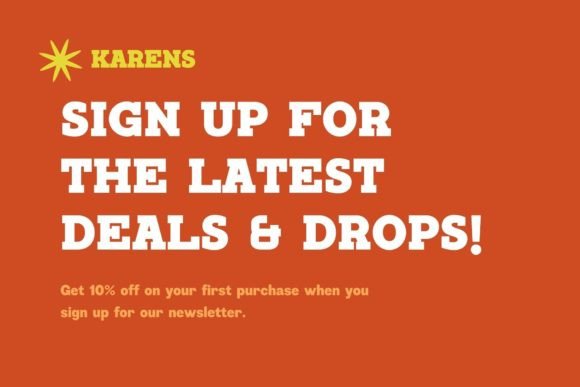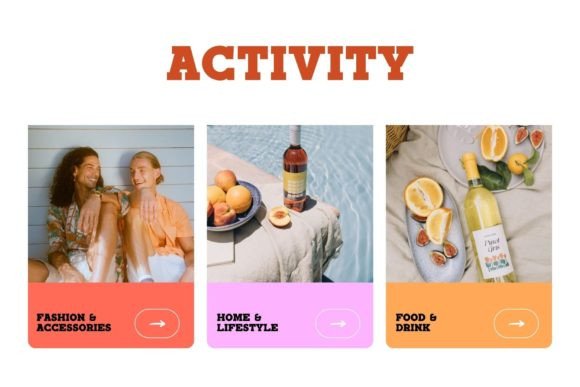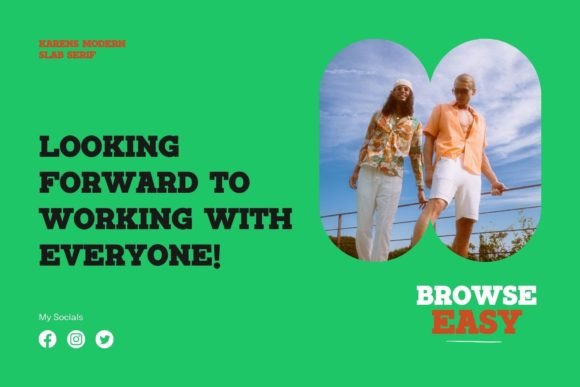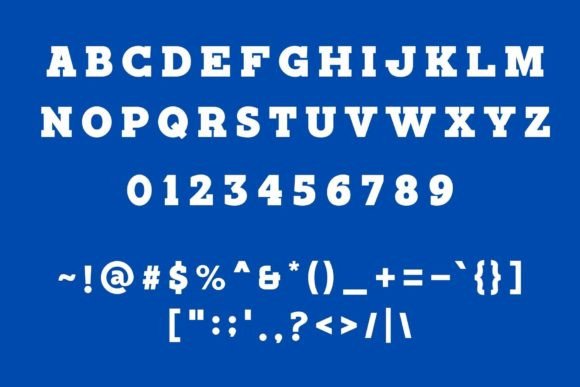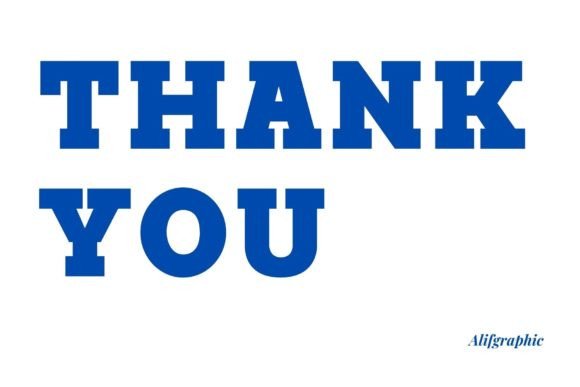
Introduction to Karens Font Font
Fonts play a crucial role in design, and the Karens Font font is a typeface that brings both character and versatility to any project. Whether you’re working on a branding project, a website, or a print design, the Karens Font font offers a unique style that can elevate your work.
Introducing β€˜Karens’ Font: A beautiful series of letters is encapsulated in this β€˜Karens’ font.
Neat lettering is perfect for writing needs that are modern and pleasing to the eye, there is a Modern impression but still looks Elegant when used for writing Tidiness in the manufacture of each letter, is our top priority.
Key Features of Karens Font Font
• βœ… High-quality typeface designed for professional use
• βœ… Includes a wide range of glyphs and characters
• βœ… Ideal for logos, branding, websites, and print
Why Choose Karens Font Font?
The Karens Font font is more than just a typeface – it’s a design tool that helps you communicate your message with style and clarity. Its unique character set and versatile design make it suitable for a wide range of applications, from elegant invitations to bold headlines.
With its carefully crafted letterforms and balanced proportions, the Karens Font font ensures readability and visual appeal across all mediums.
What makes Karens Font font special?
The Karens Font font stands out with its unique design, exceptional readability, and versatility across various design applications.